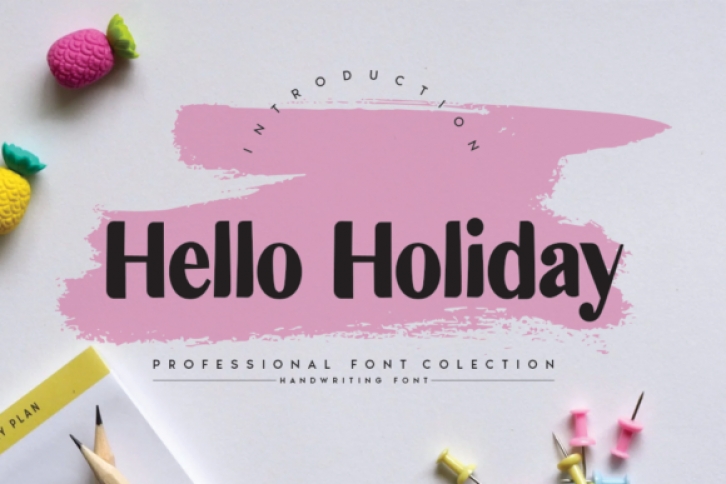
Hello Holiday is an elegant display font, carefully handcrafted to become a true favorite. It will elevate a wide range of design projects to the highest level, be it branding, headings, wedding designs, invitations, signatures, logos, labels, and much more!